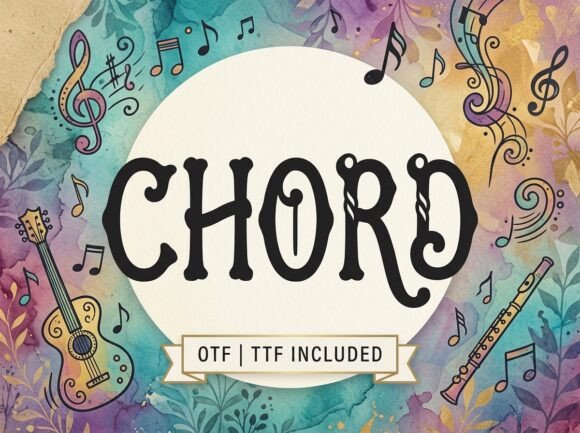
Introducing Chord Font: The Rhythmic Decorative Display Font that Strikes a Chord
Are you looking for a font that can add a touch of music to your visual communication? Look no further than Chord Font, a creative typeface that combines high-contrast, slab-serif letterforms with intricate rope-like patterns inspired by the world of music. In this article, we’ll dive into the unique features of Chord Font and explore its endless possibilities for music festival branding, podcast cover art, concert posters, and edgy streetwear design.
The Inspiration Behind Chord Font
Chord Font is more than just a font – it’s a symphony of shapes and textures that come together to create a truly unique visual experience. The font’s creator was inspired by the world of music, where the strings of an instrument are transformed into beautiful sounds. Similarly, Chord Font transforms select characters into intricate rope-like or coiled cable patterns, mimicking the strings of an instrument. This creative twist adds a playful interplay between solid block shapes and textured, coiled details, making Chord Font an extraordinary choice for designers and crafters.
Key Features of Chord Font
- High-contrast, slab-serif letterforms: Chord Font features bold, slab-serif letterforms that provide a solid foundation for your visual communication.
- Intricate rope-like patterns: Select characters are transformed into intricate rope-like or coiled cable patterns, adding a touch of music to your design.
- Playful interplay between shapes and textures: The combination of solid block shapes and textured, coiled details creates a visually appealing contrast that adds energy to your design.
Chord Font is an incredibly versatile font that can be used in a variety of design applications. Here are some ideas to get you started:
- Music Festival Branding: Use Chord Font to create eye-catching posters, flyers, and social media graphics that capture the energy and excitement of a music festival.
- Podcast Cover Art: Add a touch of music to your podcast cover art with Chord Font’s unique rope-like patterns and high-contrast letterforms.
- Concert Posters: Create stunning concert posters that showcase the band’s name and tour dates in a bold, eye-catching font.
- Edgy Streetwear Design: Use Chord Font to add a touch of music to your streetwear design, from t-shirts to hoodies.
Why Choose Chord Font?
So why choose Chord Font over other fonts? Here are just a few reasons:
- Unique and Creative: Chord Font’s intricate rope-like patterns and high-contrast letterforms make it a truly unique and creative font that will set your design apart.
- Handcrafted Artistry: Chord Font delivers a sense of handcrafted artistry to your visual communication, making your message resonate with style.
- Symphonic Energy: Chord Font’s playful interplay between shapes and textures adds a symphonic energy to your design, making it perfect for music-related applications.
In conclusion, Chord Font is a rhythmic decorative display font that is sure to strike a chord with designers and crafters. Its unique combination of high-contrast, slab-serif letterforms and intricate rope-like patterns makes it an extraordinary choice for music festival branding, podcast cover art, concert posters, and edgy streetwear design. With its handcrafted artistry and symphonic energy, Chord Font is the perfect font for anyone looking to add a touch of music to their visual communication.